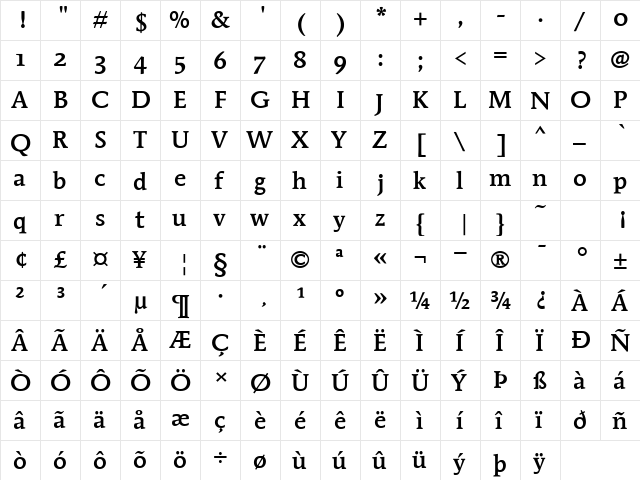
MendozaITCMediumOS Roman
Design Context for MendozaITCMediumOS Typeface
MendozaITCMediumOS offers clean, dependable letterforms without strong stylistic allegiance, making it a practical choice for designers who need flexibility.